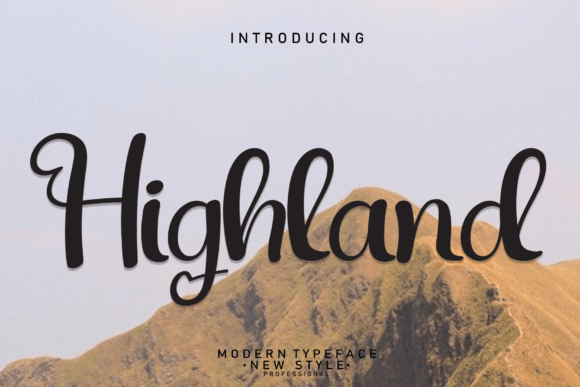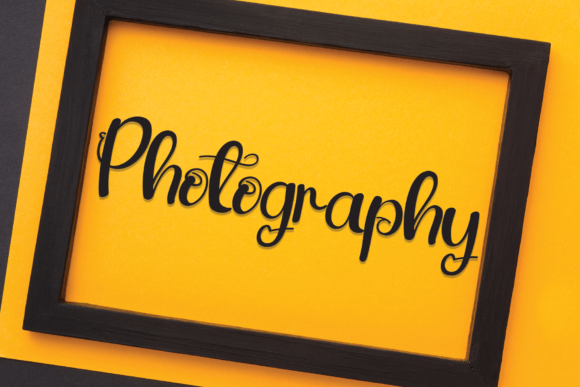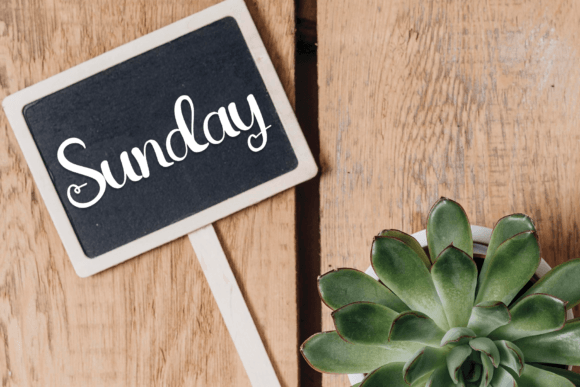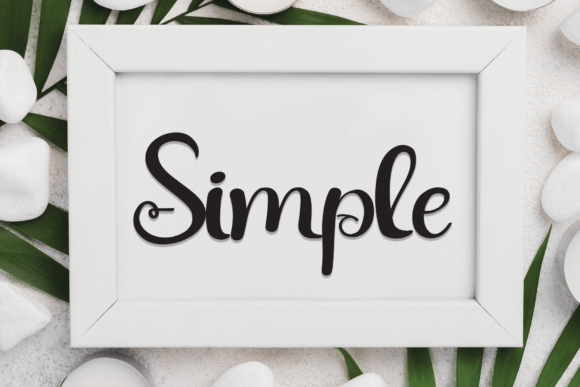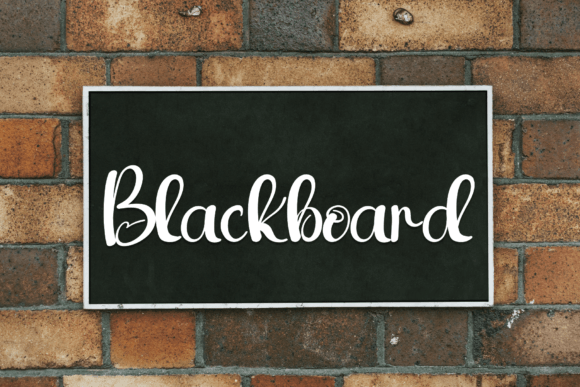
Highland Font
About Highland Font
The Highland Font Download is a fun and friendly handwritten typeface that adds charm, warmth, and creativity to any design. With its playful strokes and smooth handwritten style, Highland brings a natural and personal touch that feels both approachable and professional. As a result, it is an excellent choice for designers who want their work to be both stylish and authentic.
Moreover, Highland is extremely versatile. It adapts beautifully to both digital and print media, making it perfect for branding projects, greeting cards, presentations, and social media content. In addition, its clear readability ensures it works well for both bold headlines and small text details.
Features of Highland Font
When you download the Highland Font, you’ll enjoy several creative features, such as:
• A playful handwritten style with smooth, balanced curves
• Excellent readability across all text sizes
• A natural handwritten flow that feels warm and authentic
• Versatility for professional and personal projects alike
• A polished yet casual look that enhances creativity
Best Uses for Highland Font
The Highland Font Download works well in a wide range of projects. For example, it is ideal for:
• Greeting cards and invitations – Add a heartfelt, playful vibe to personal messages
• Craft projects – Perfect for DIY designs that need charm and uniqueness
• Logos and branding – Create friendly, stylish brand identities
• Social media graphics – Design standout posts for Instagram, Pinterest, or blogs
• Event posters and flyers – Bold handwritten strokes that capture attention
• Stationery and packaging – A fun, creative touch for personal or business products
Because of its flexibility, Highland is a go-to font for designers looking for personality and style.
Why Choose Highland Font
The Highland Font Download stands out because it combines playfulness with professional polish. Unlike generic handwritten fonts, it provides authentic strokes that feel natural while maintaining strong readability. In addition, it can be used across multiple industries, from creative branding to handmade craft projects.
Furthermore, Highland is easy to use across popular design platforms, making it accessible for beginners while still offering enough detail for professionals. As a result, it brings together flexibility, ease of use, and quality.
In conclusion, the Highland Font Download is a fun, friendly, and versatile handwritten typeface that enhances any design. From invitations and greeting cards to branding and social media posts, Highland delivers charm and creativity to your projects.